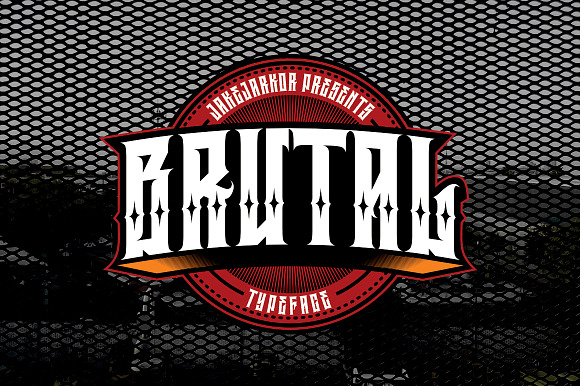
BRUTAL Font
BRUTAL Font is perfect for industrial branding, construction companies, heavy metal music, extreme sports marketing, urban streetwear, rebellious fashion labels, architectural firms, raw concrete aesthetics, underground culture materials, aggressive advertising campaigns, dystopian design projects, and powerful corporate identities.
What makes BRUTAL Font exciting is its uncompromising strength that embodies raw power and architectural brutalism through commanding letterforms that refuse to be ignored or softened by conventional design thinking. This formidable typeface represents the essence of industrial might and structural honesty, combining geometric brutality with functional clarity that resonates with audiences seeking authenticity, strength, and the courage to embrace bold design decisions. The font's aggressive character and unrefined edges create immediate impact while maintaining the readability essential for commercial applications that demand attention and respect. Its brutal personality makes it perfect for brands that want to communicate power, integrity, and the transformative force of uncompromising design philosophy.
The BRUTAL Font family includes regular, medium, and bold weights, featuring industrial alternates, harsh ligatures, and brutalist design elements. The character set incorporates angular symbols, powerful numerals, and aggressive punctuation marks that enhance the font's brutal character and provide designers with comprehensive industrial typography solutions for commanding brand expressions.